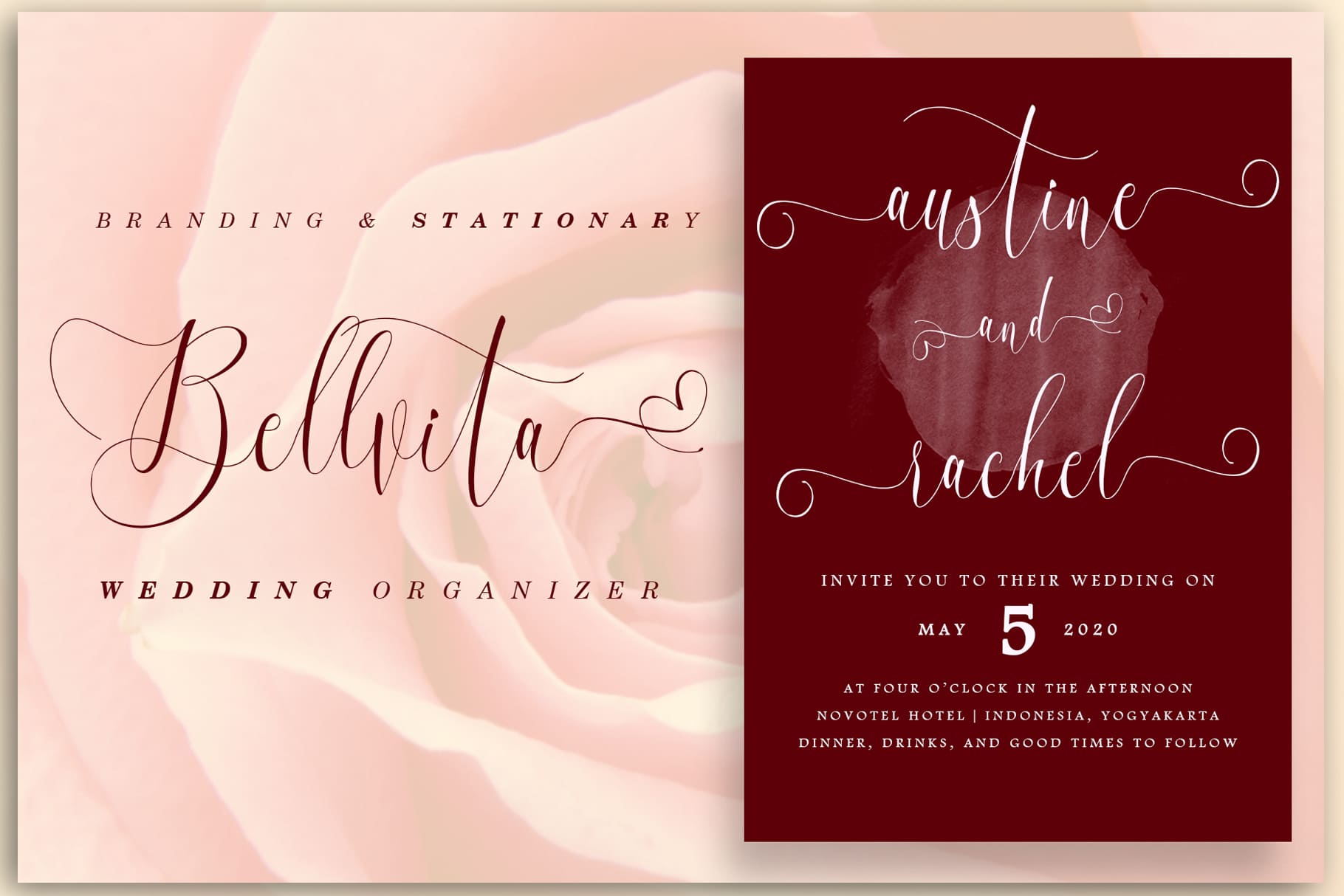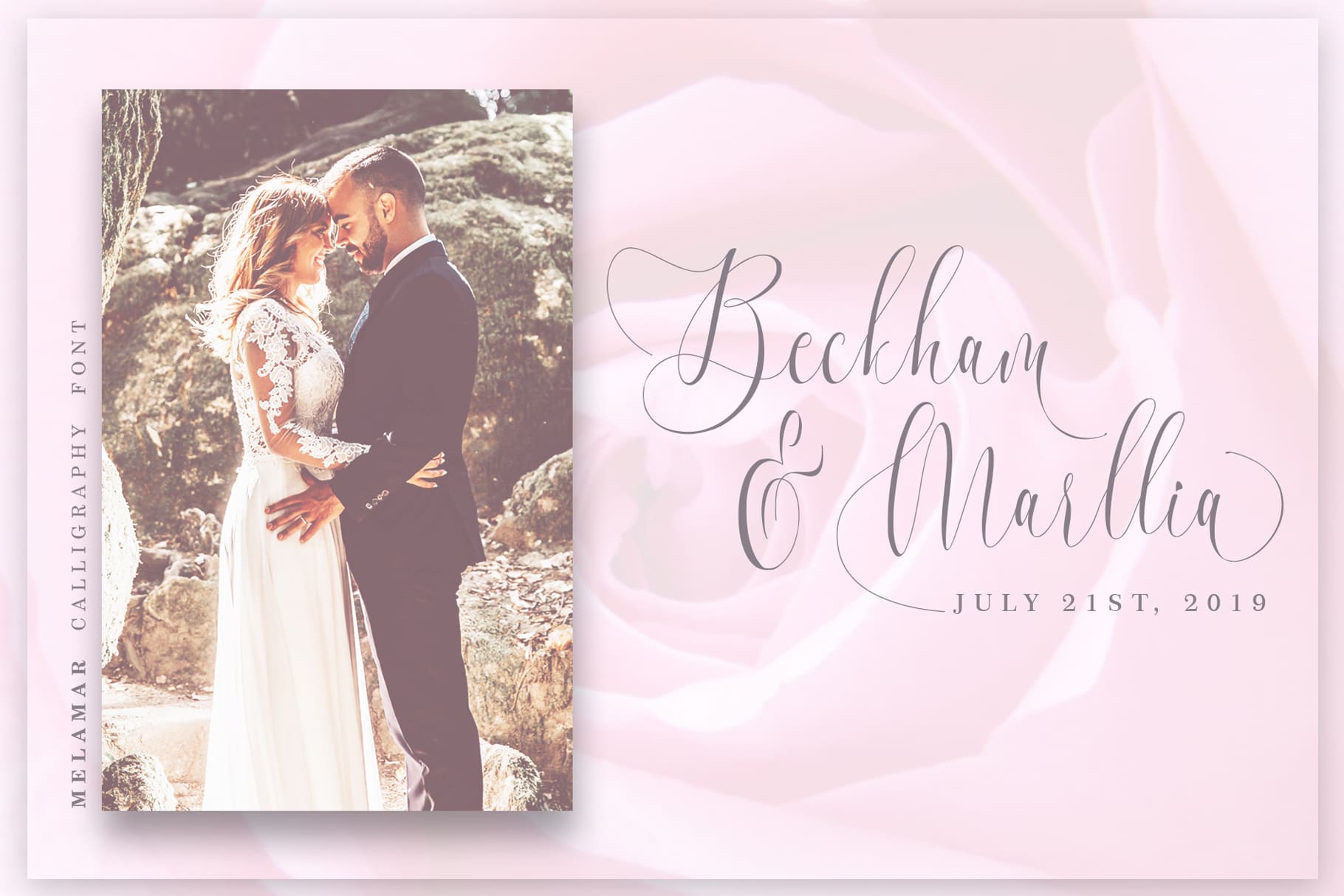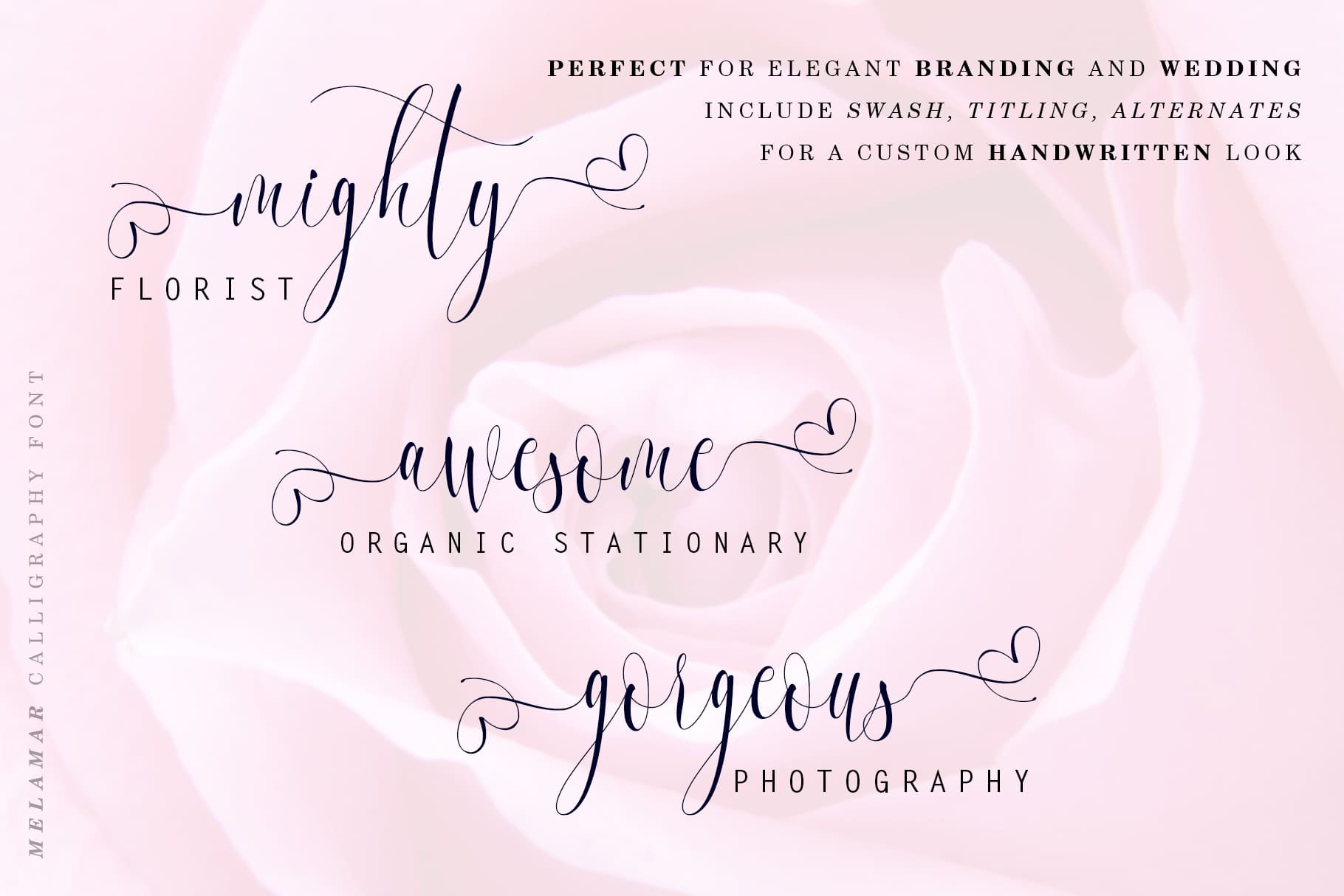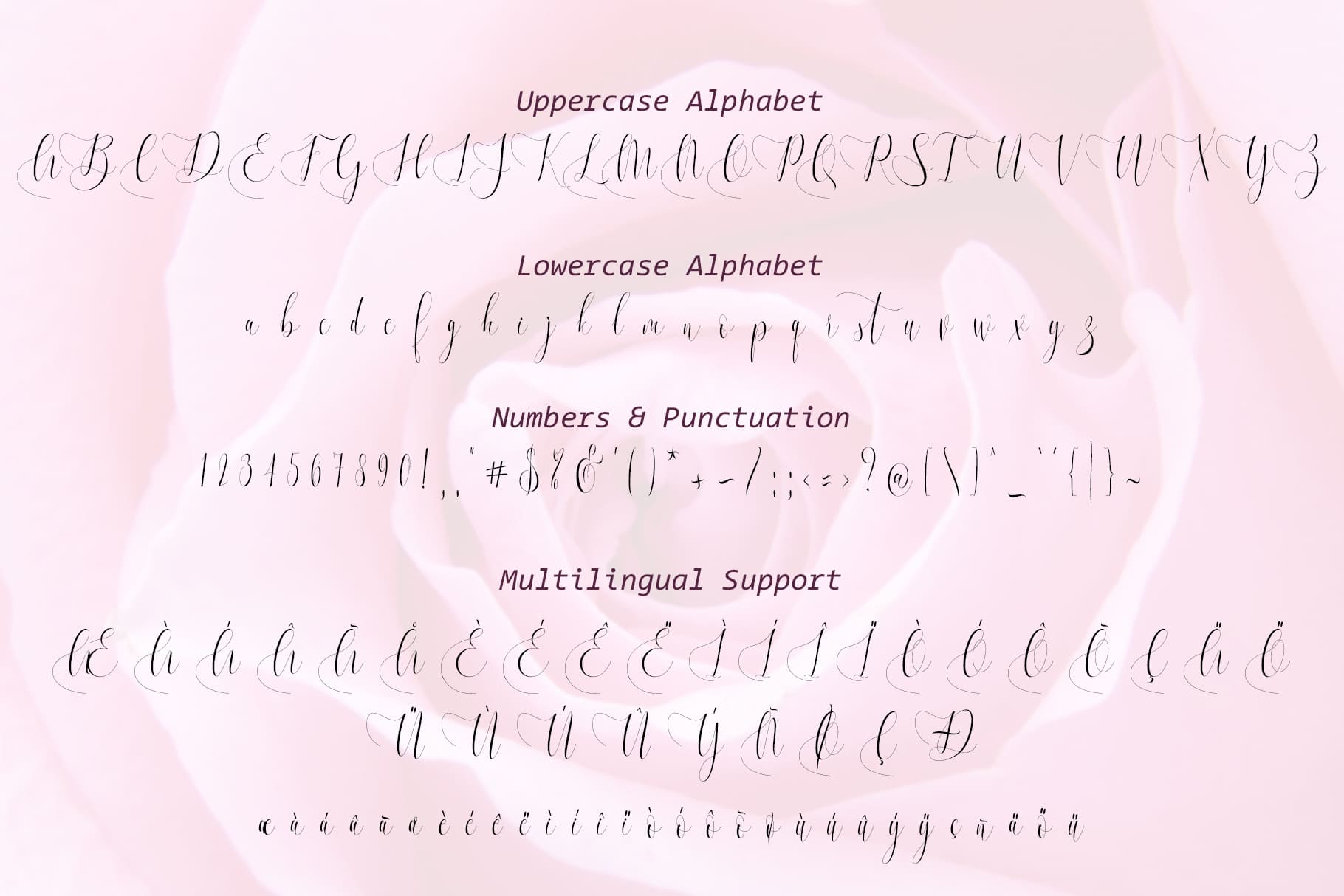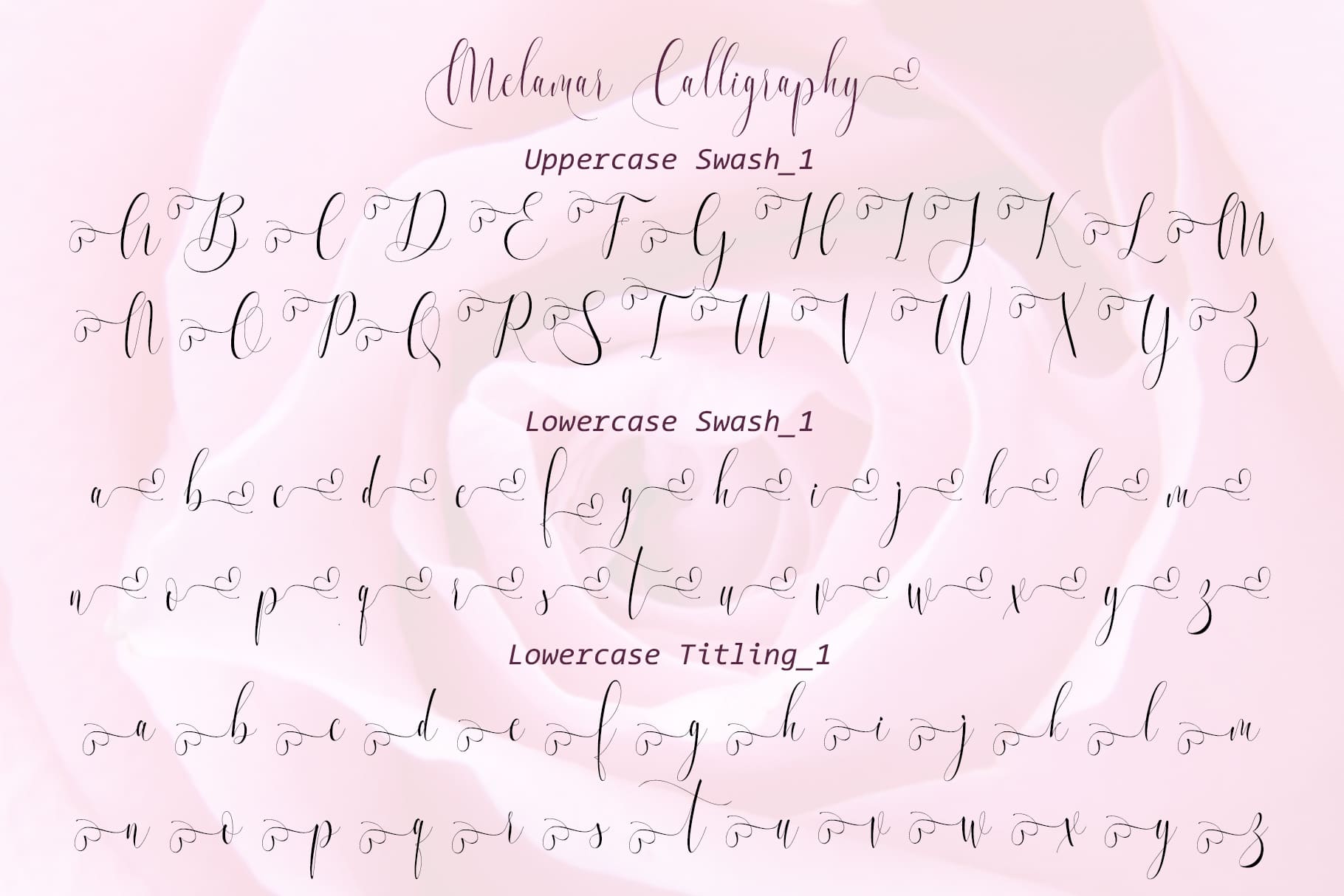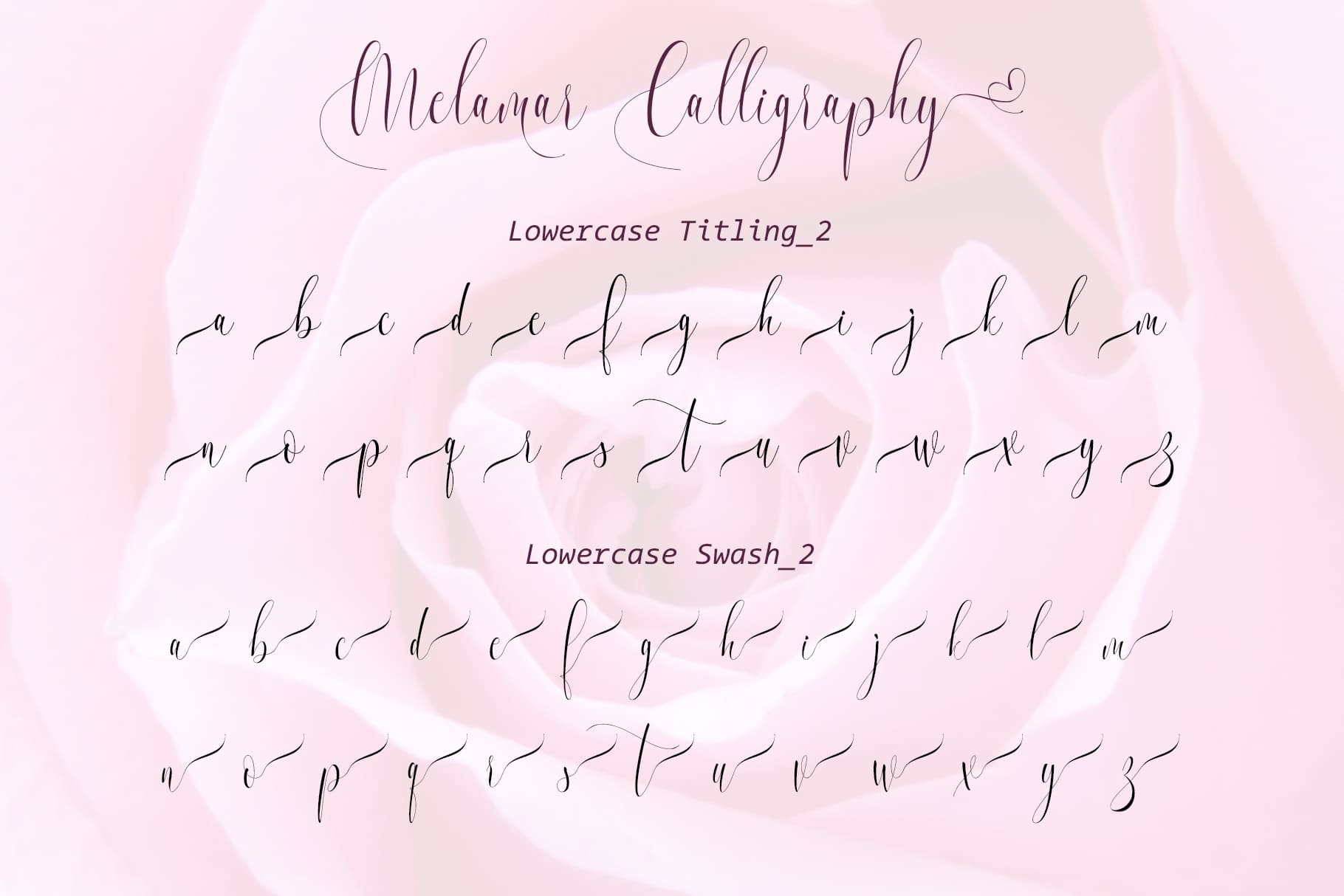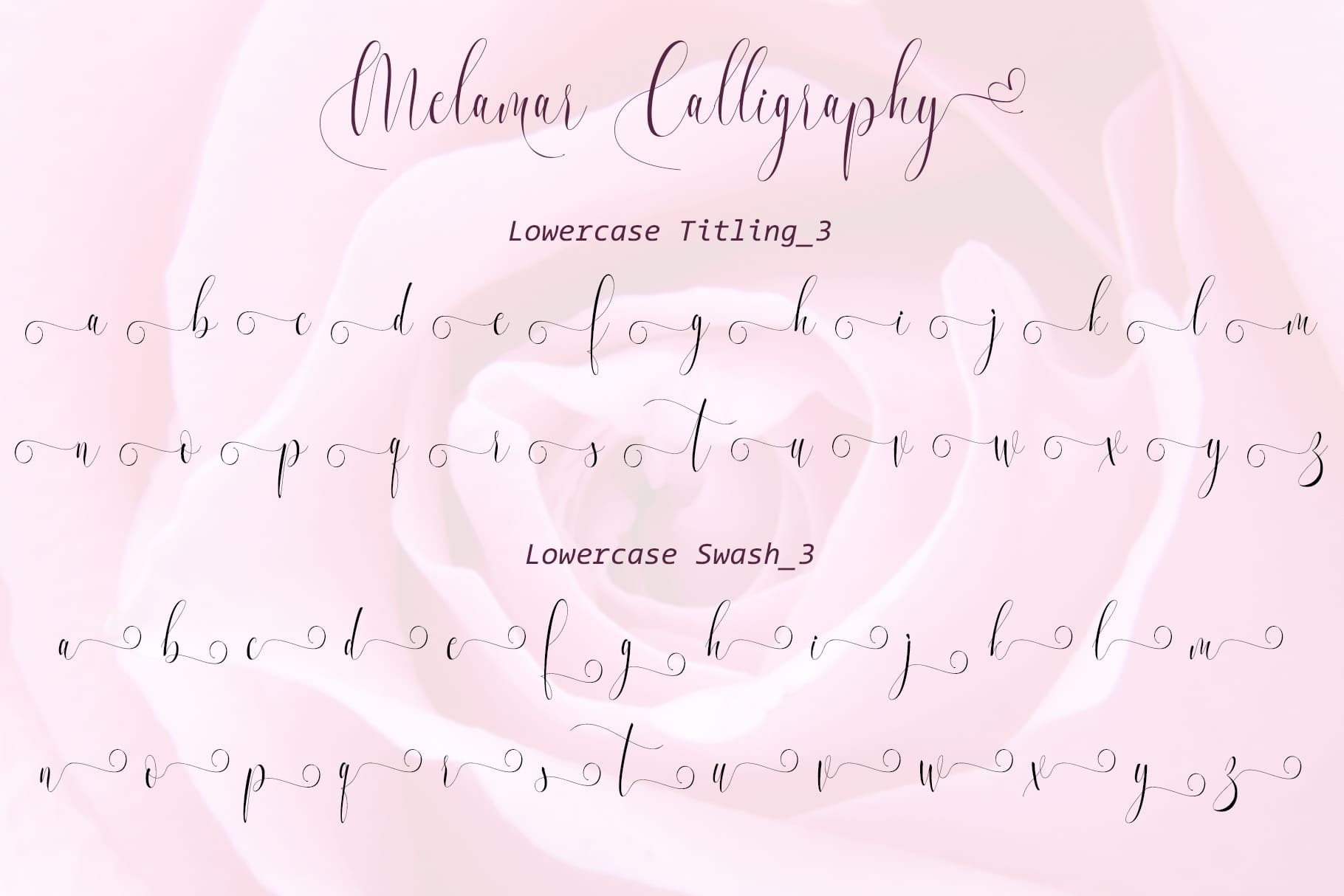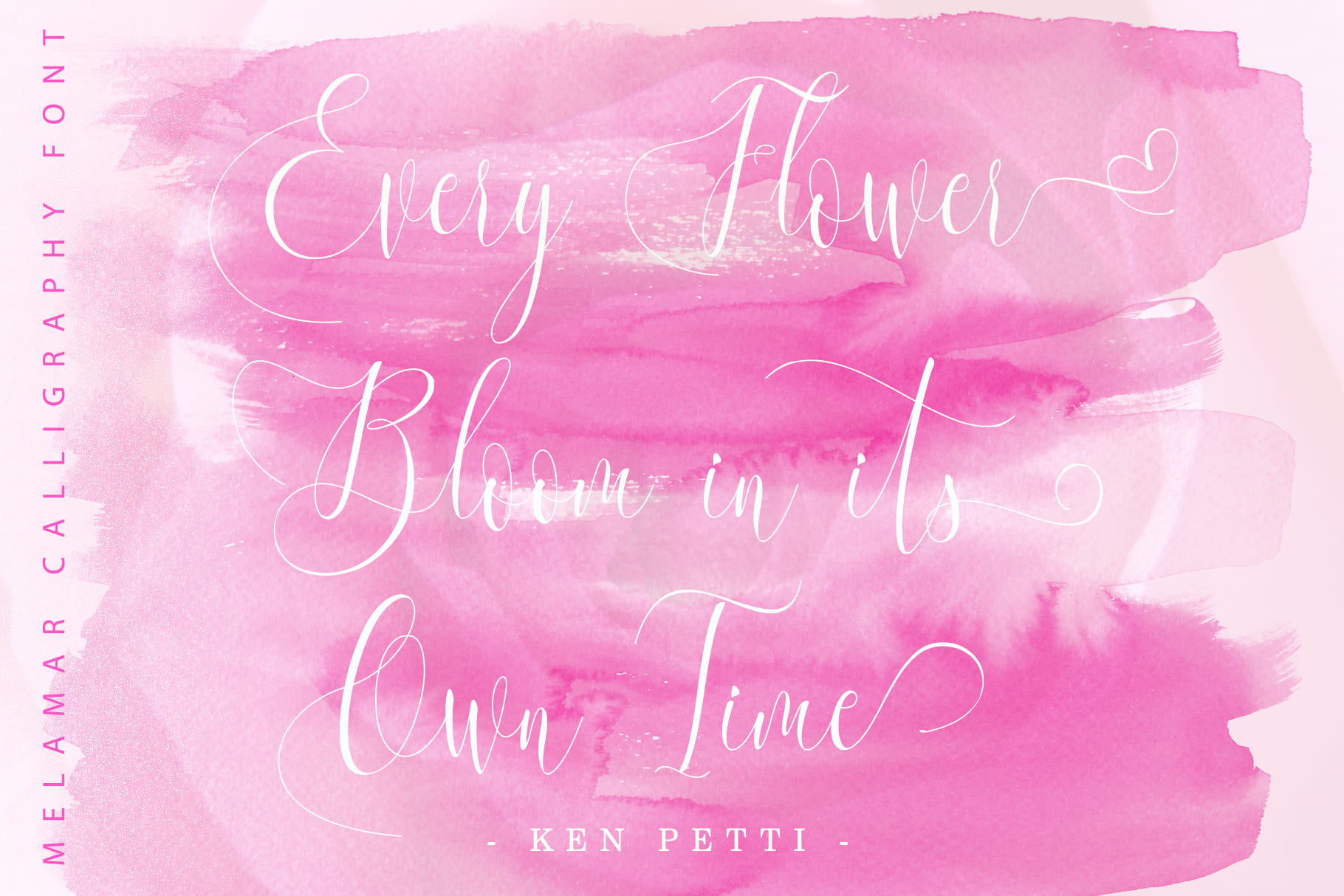
Melamar Calligraphy Family (8 fonts)
Melamar is designed with OpenType features and PUA encoded which is accessible in Adobe Illustrator, Photoshop, InDesign and Microsoft Word. PUA Encoded Characters are fully accessible without additional design software.